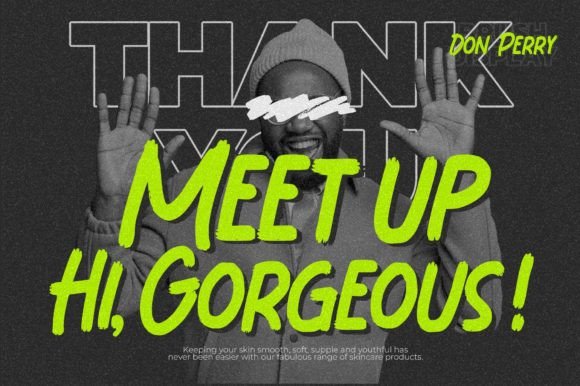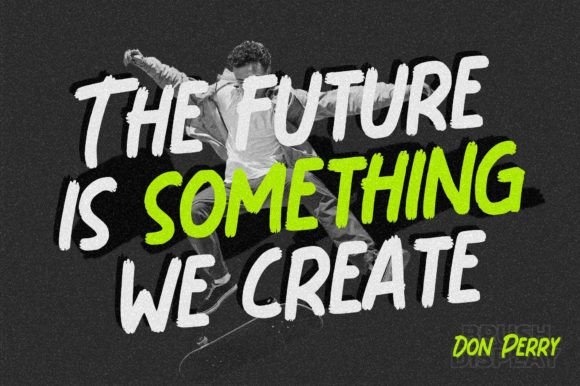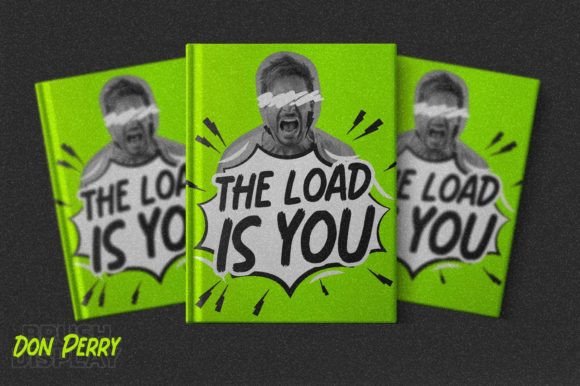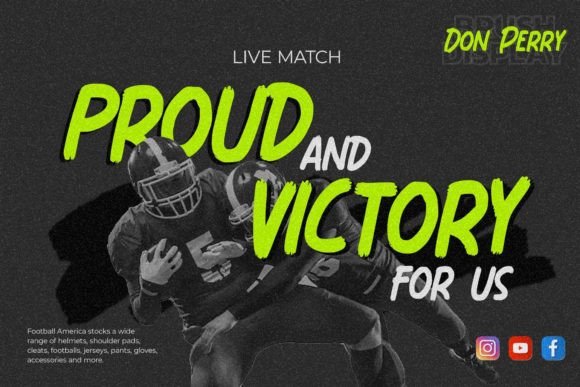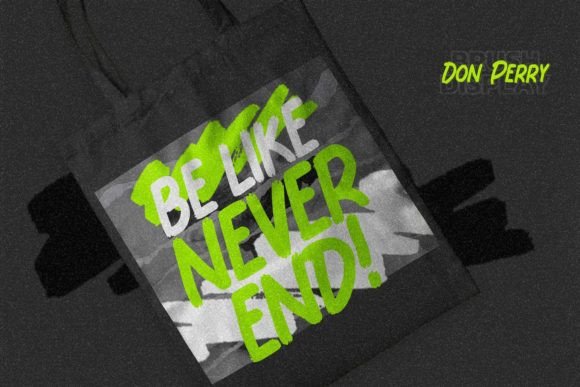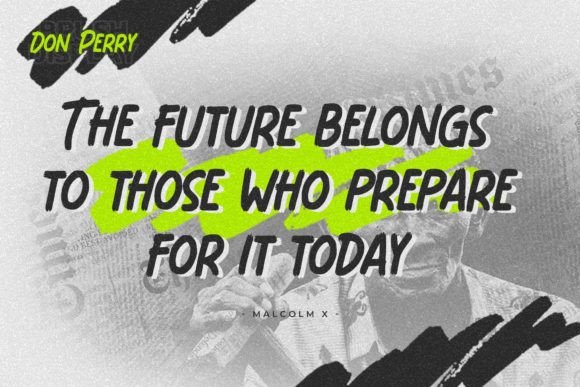
Introduction to Don Perry Font
Don Perry is a brush display font with a naturally textured style, classy look, and dramatic movement.
Don Perry is great for your next creative projects such as logos, printed quotes, invitations, cards, product packaging, headers, stationery, wedding designs, label, product packaging, special events, or anything that needs unique typography .
Key Features of Don Perry Font
Why Choose Don Perry Font?
Don Perry Font offers exceptional quality and versatility, making it a valuable addition to your design toolkit. Whether you’re creating for personal projects or commercial use, Don Perry Font delivers professional results.